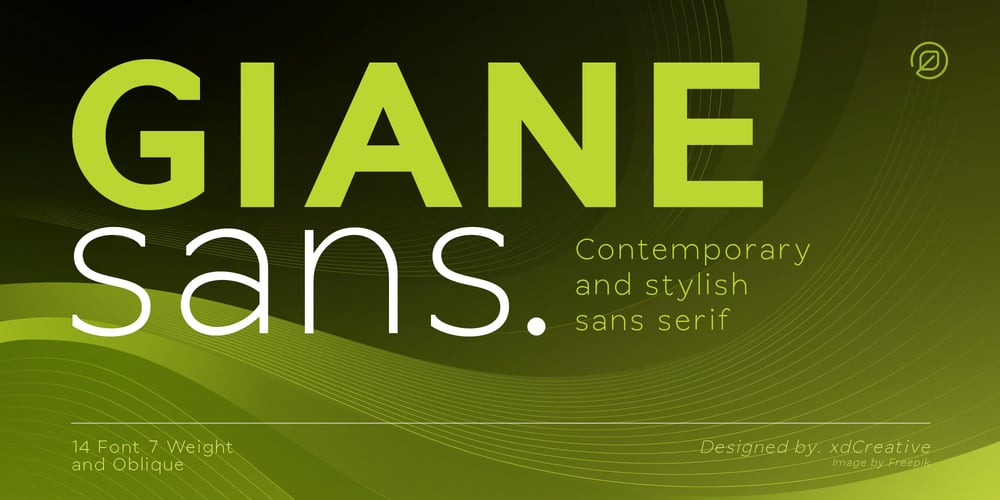
Giane Sans Font Family was designed by Faldy Kudo and published by XdCreative. Giane Sans contains 14 styles and family package options. DescriptionGiane sans. is contemporary and stylish sans serif with large x-height, low/minimal stroke contrast and large chunky sans with closed apertures. Giane san is matching pair with Giane Serif (https://www.myfonts.com/fonts/xdcreative/giane/)Giane sans Perfectly suited for graphic design and any display use ( for the logos, t-shirts, the web as well as for print, and also great for headings),Thank You_xd